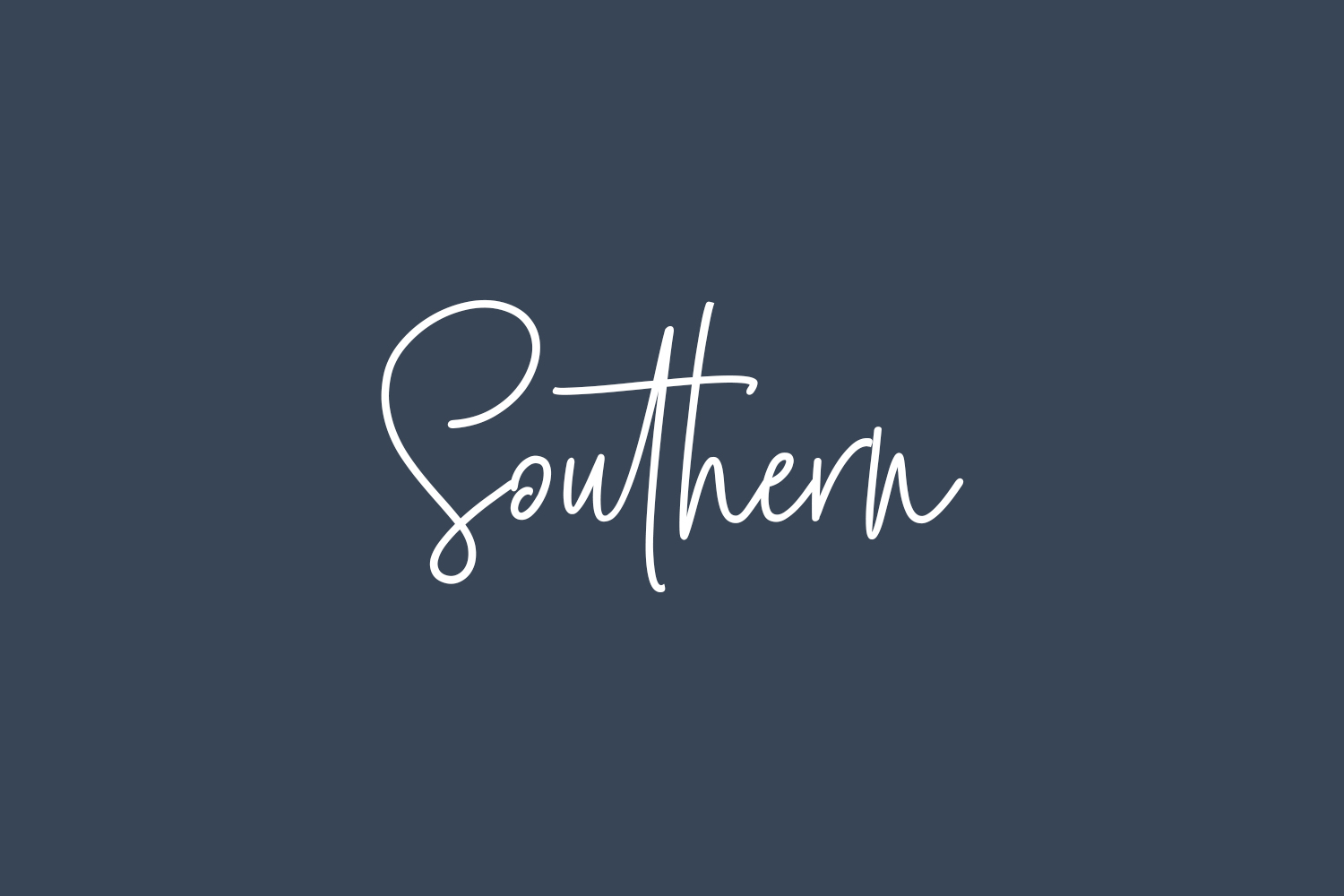
With a graceful allure and an added touch of dynamism, Southern Free Font possesses a distinct appeal. This clean and sophisticated signature-style font collection is an ideal choice for effortlessly and swiftly crafting genuine hand-lettered text. Southern Free Font is free for personal use only. Please purchase the full version for commercial use.
Designed by Moriztype